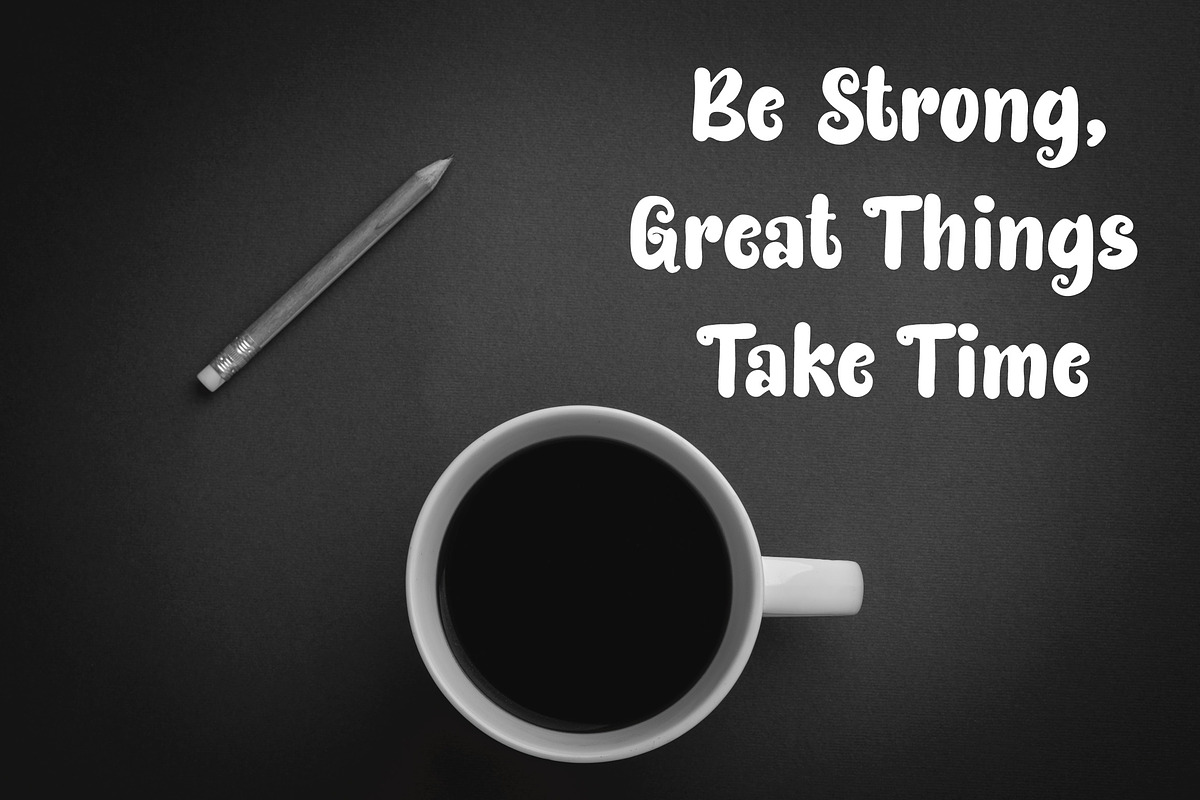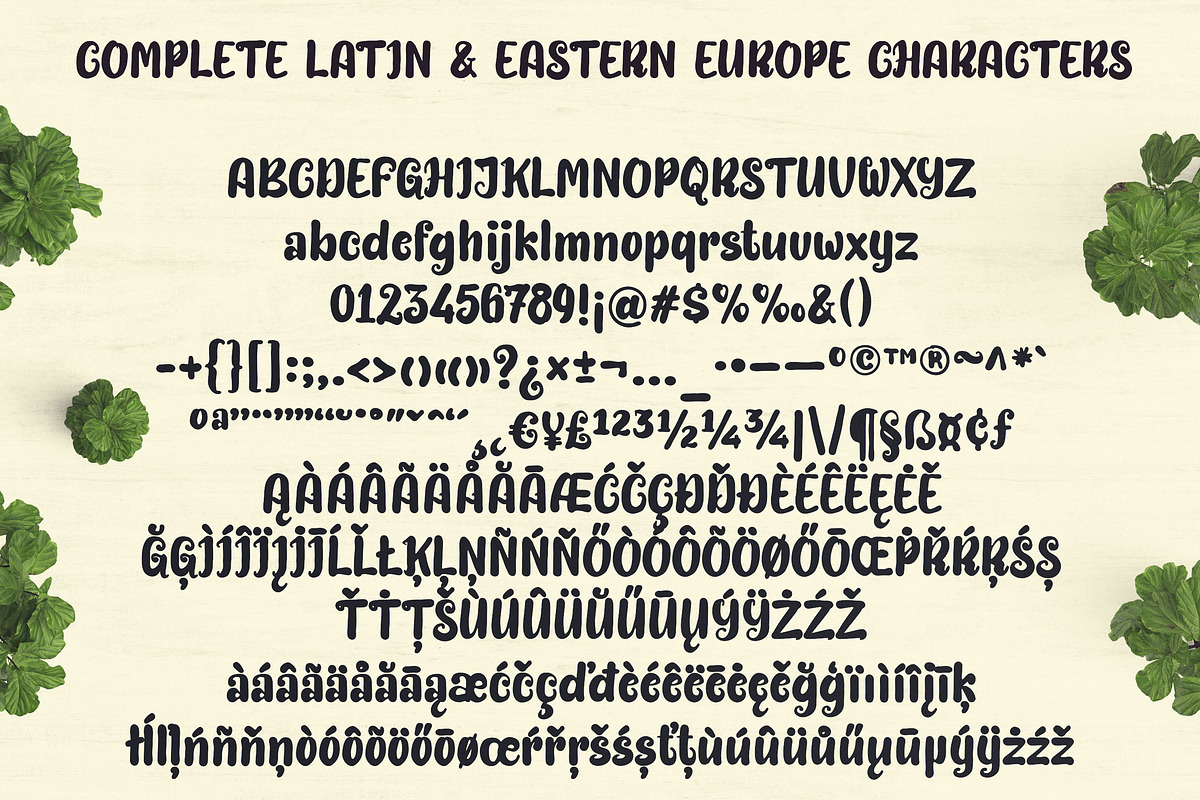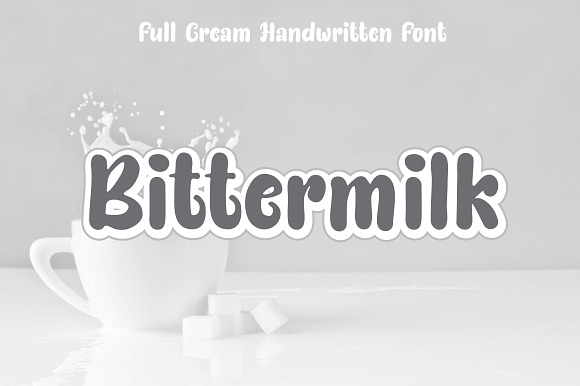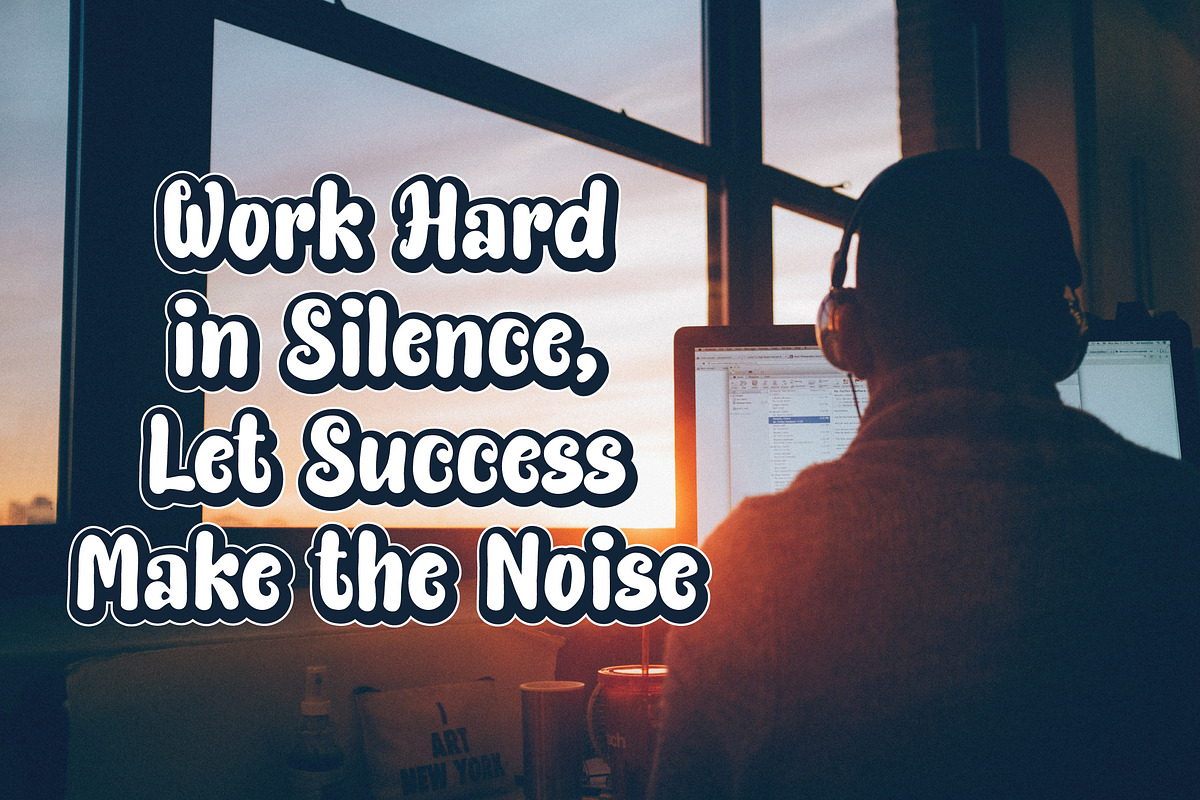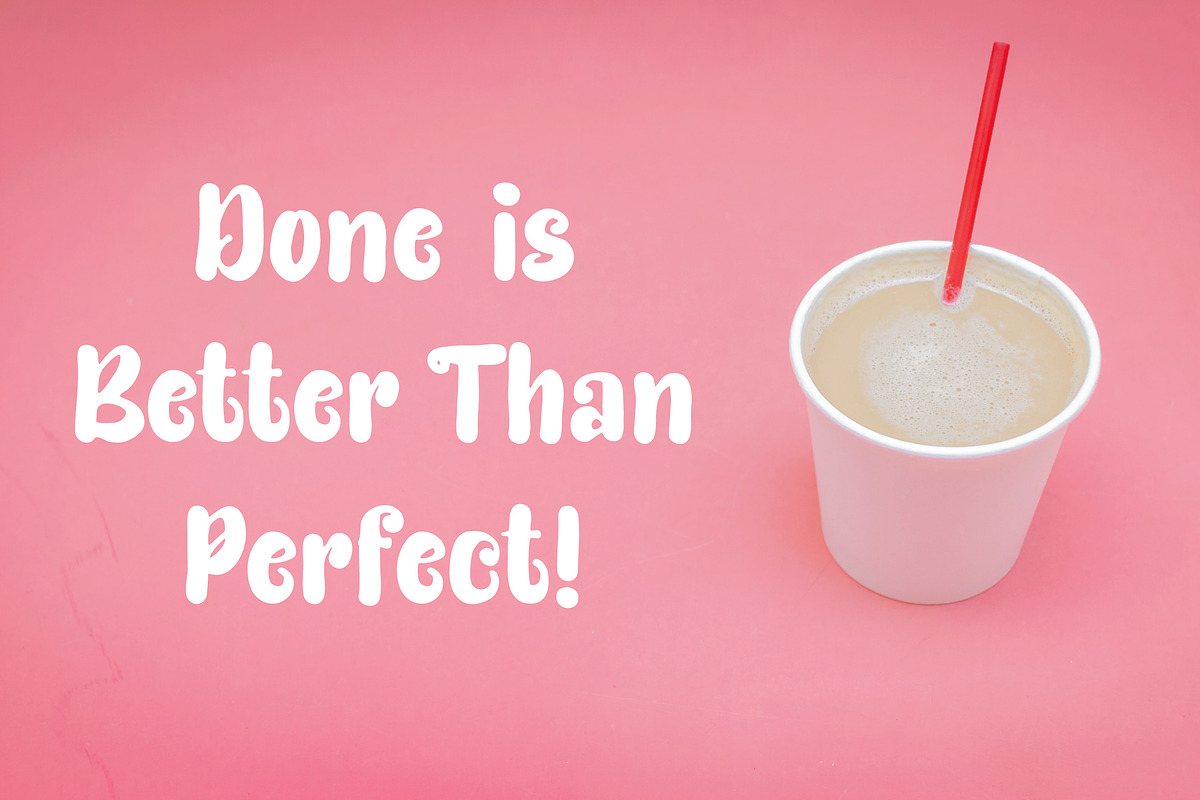
Bittermilk | Smooth Handwritten Font
Introducing a new cute bold handwritten font. All node was cleaned in fairly natural shape. This font will nice for logo, title, subtitle,T-shirt, Mug, etc.
Have 305 glyphs, supported to all Latin and Eastern Europe characters.
All node was cleaned in fairly natural shape.
Less stress with no alternate characters, basic text already cute and fun.